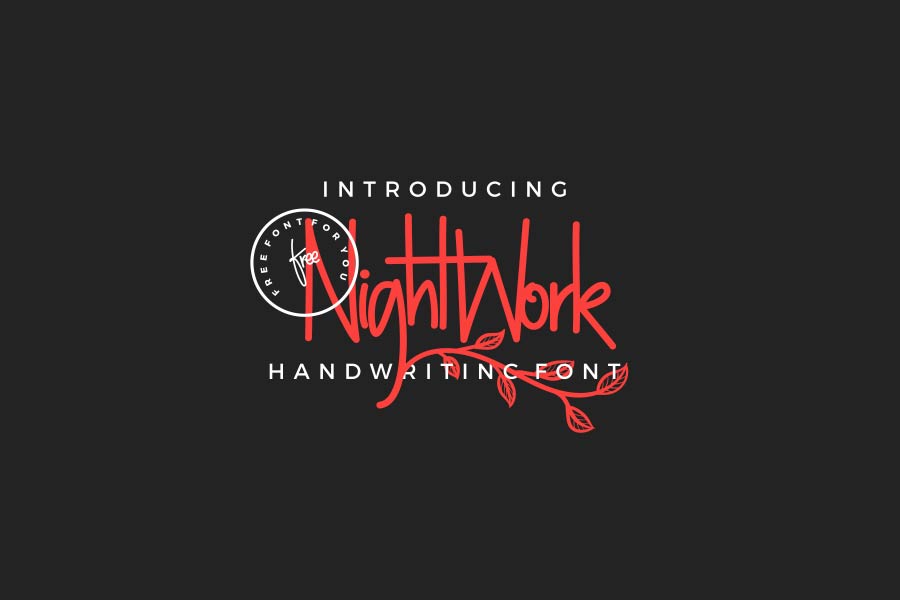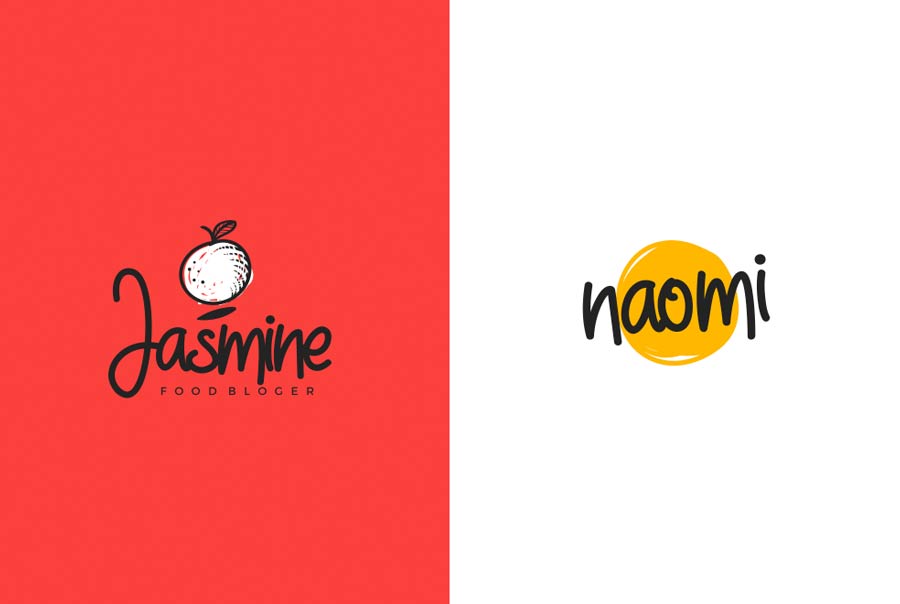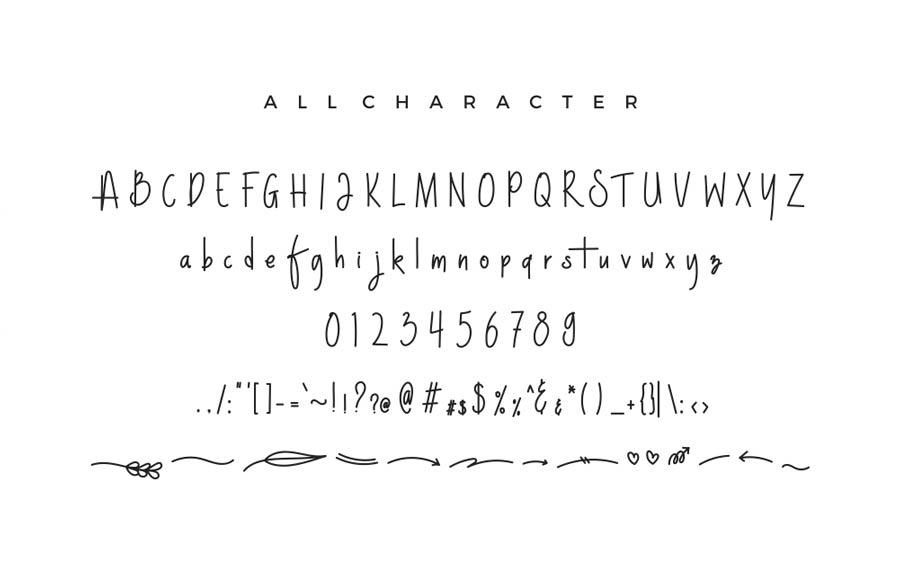
Nightwork is a free font with soft and feminine handwriting style. The font design works perfectly fine even the font kerning is consider tight.
Nightwork works great for designs that target the female audience, especially for food, health and wellness business. Besides that, this font also suitable for poster, flyers and any printing and web projects which require handwriting style with the impression of sweet, cute and feminine.
- Category: Handwriting